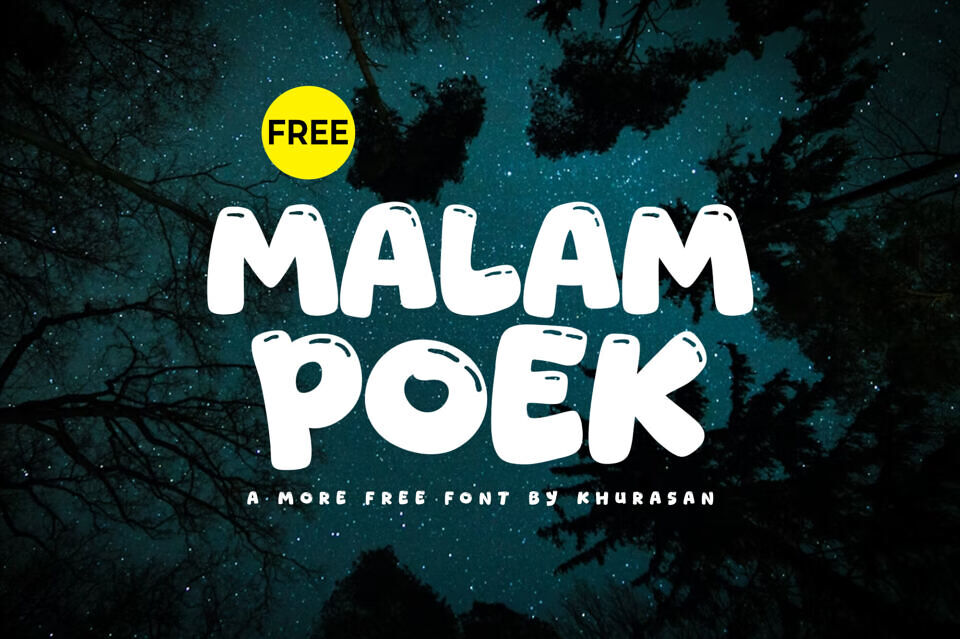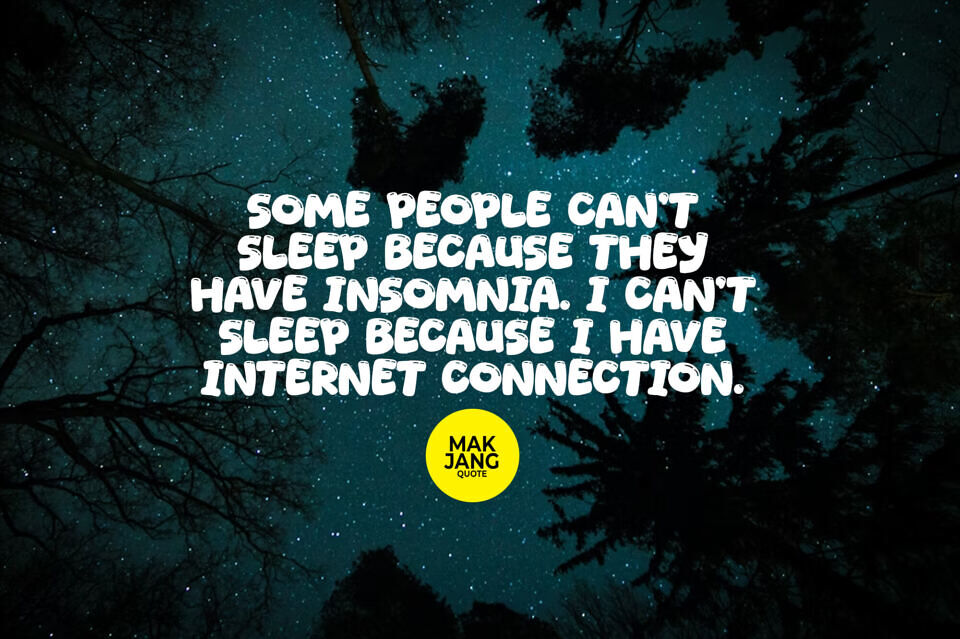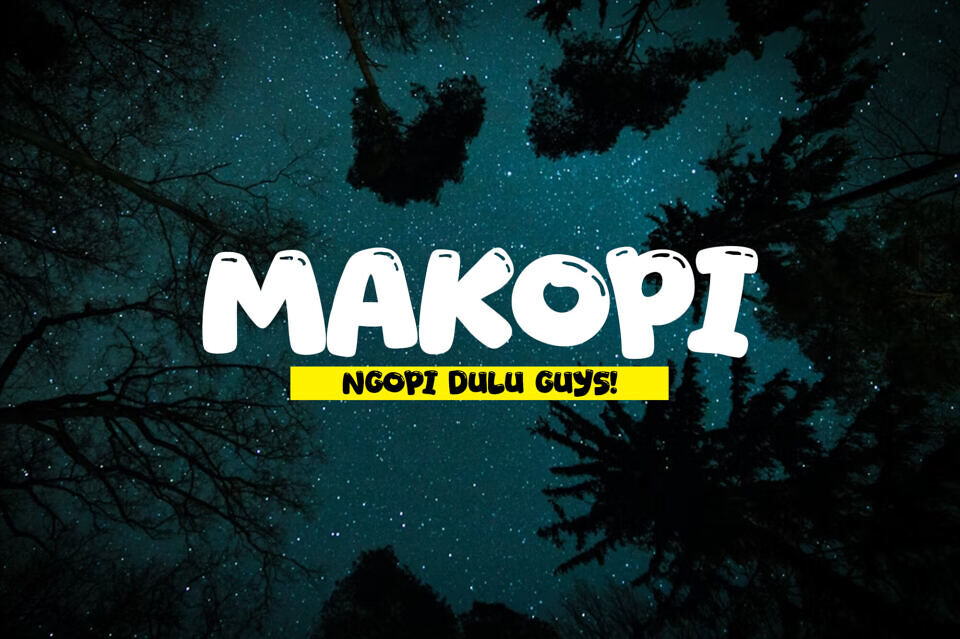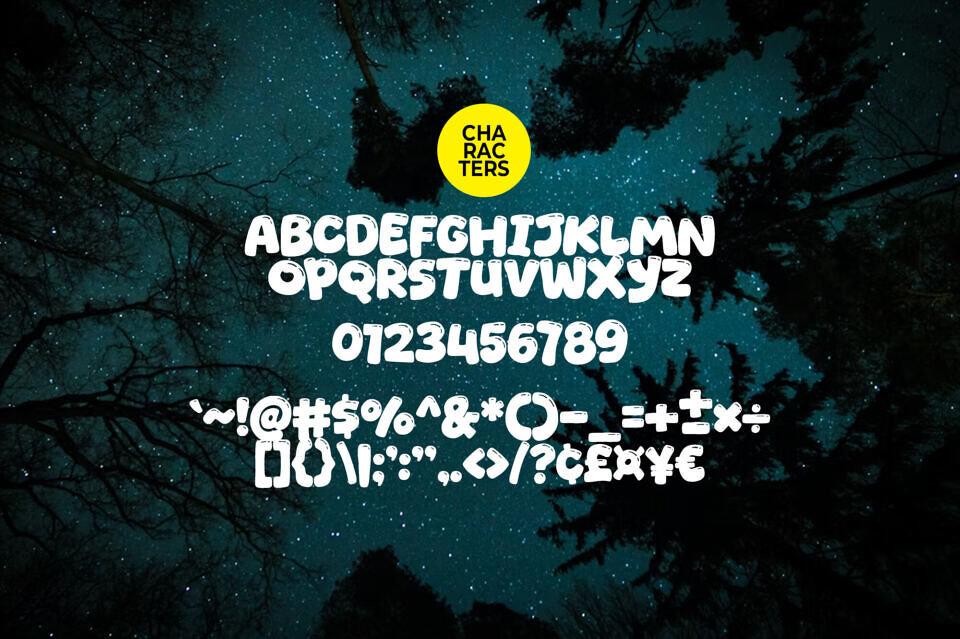
Malam Poek Font
Looking for a font that doesn’t take itself too seriously? Malam Poek is here to help! Inspired by casual doodles and bold marker sketches, this font adds a laid-back, handmade vibe to any design. Whether you’re making a birthday card or a cool t-shirt, Malam Poek makes it look effortless.